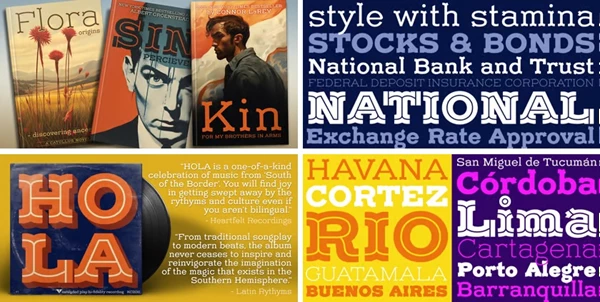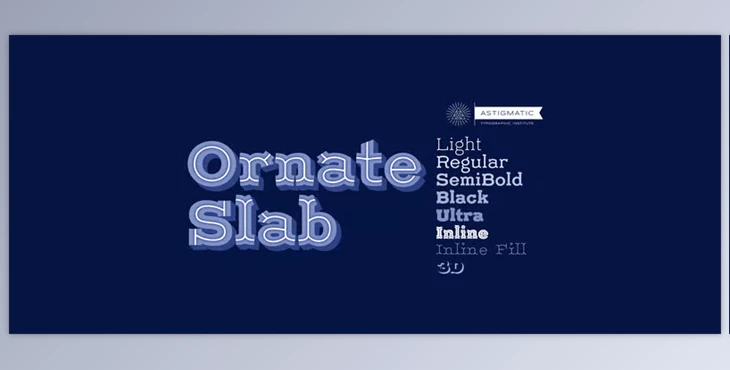
MyFonts - Ornate Slab AOE Font Family:
Ornate Slab AOE Font Family is a resurrected typeface from a penmanship book and is now a digital font. It was developed into a broad set of anatomical features tailored with multiple weights and effect styles.
This expansion offers designers options for equipment that require a maritime, cultural, or historical touch. Like other fonts in its family, this font also contains many features that add to its functionality and beauty, thus providing designers with numerous options.